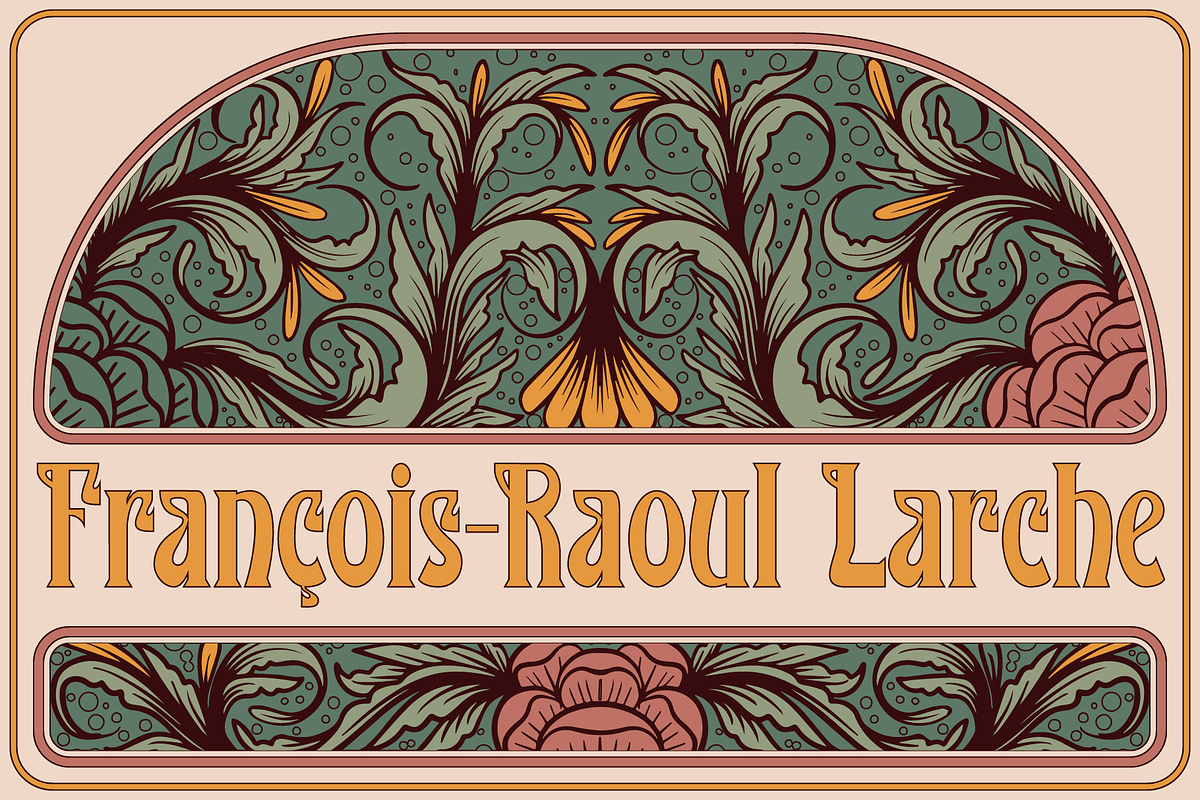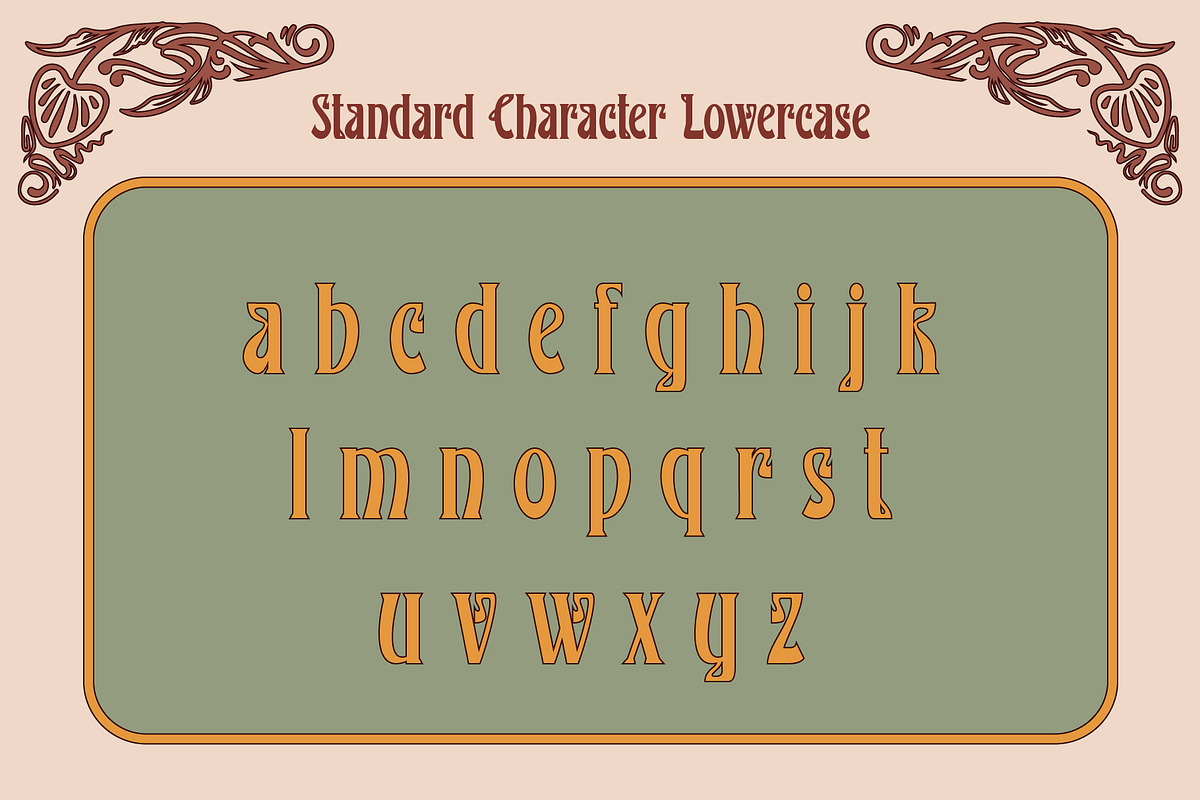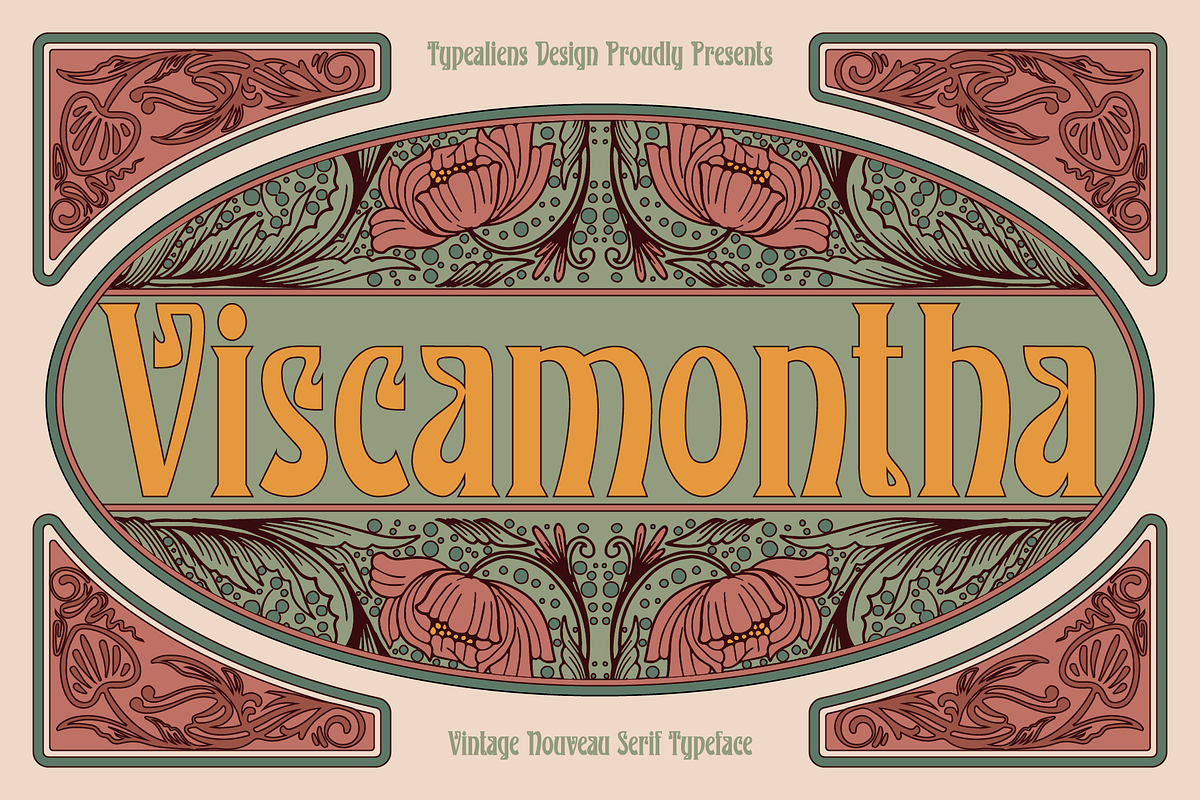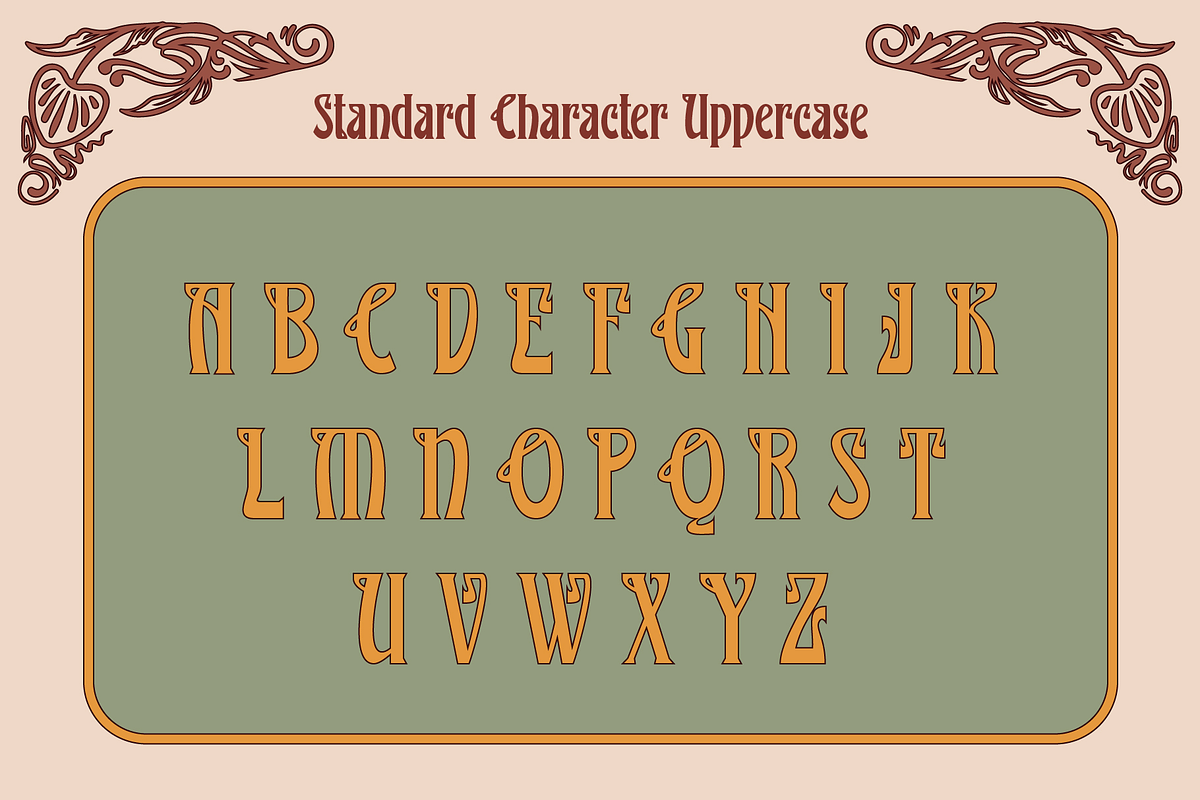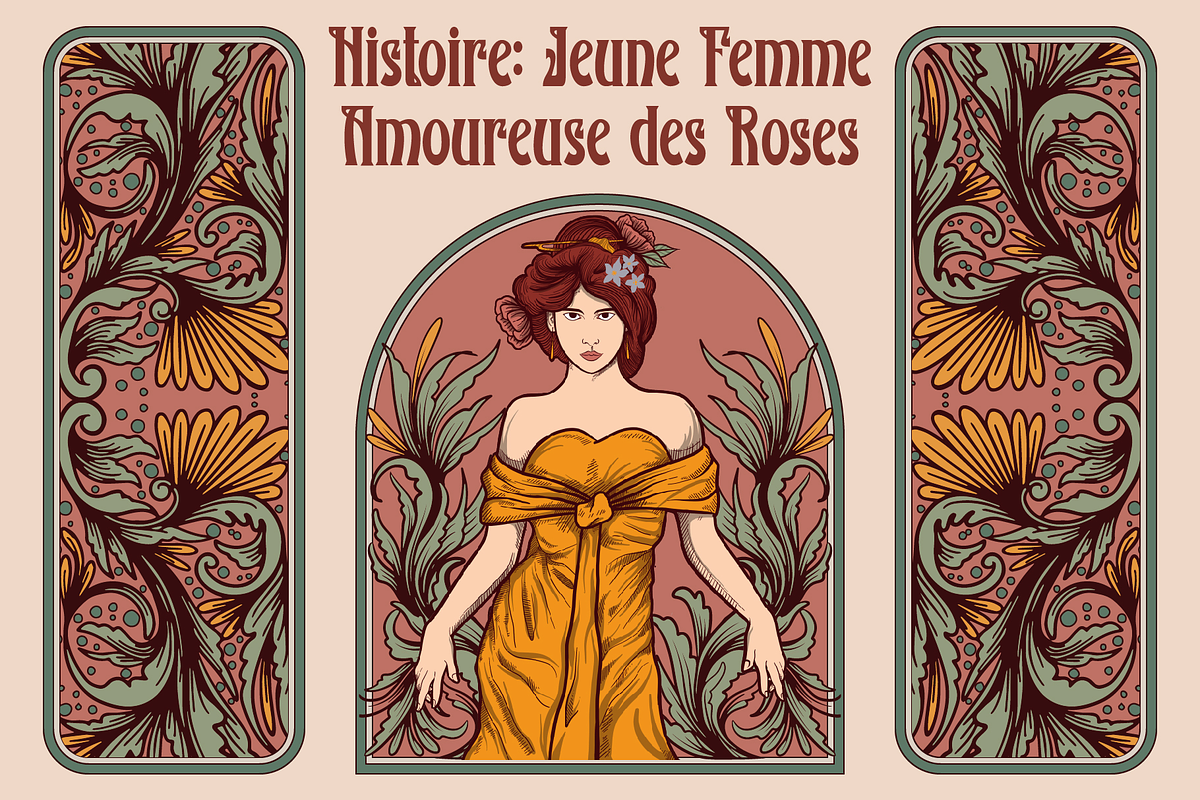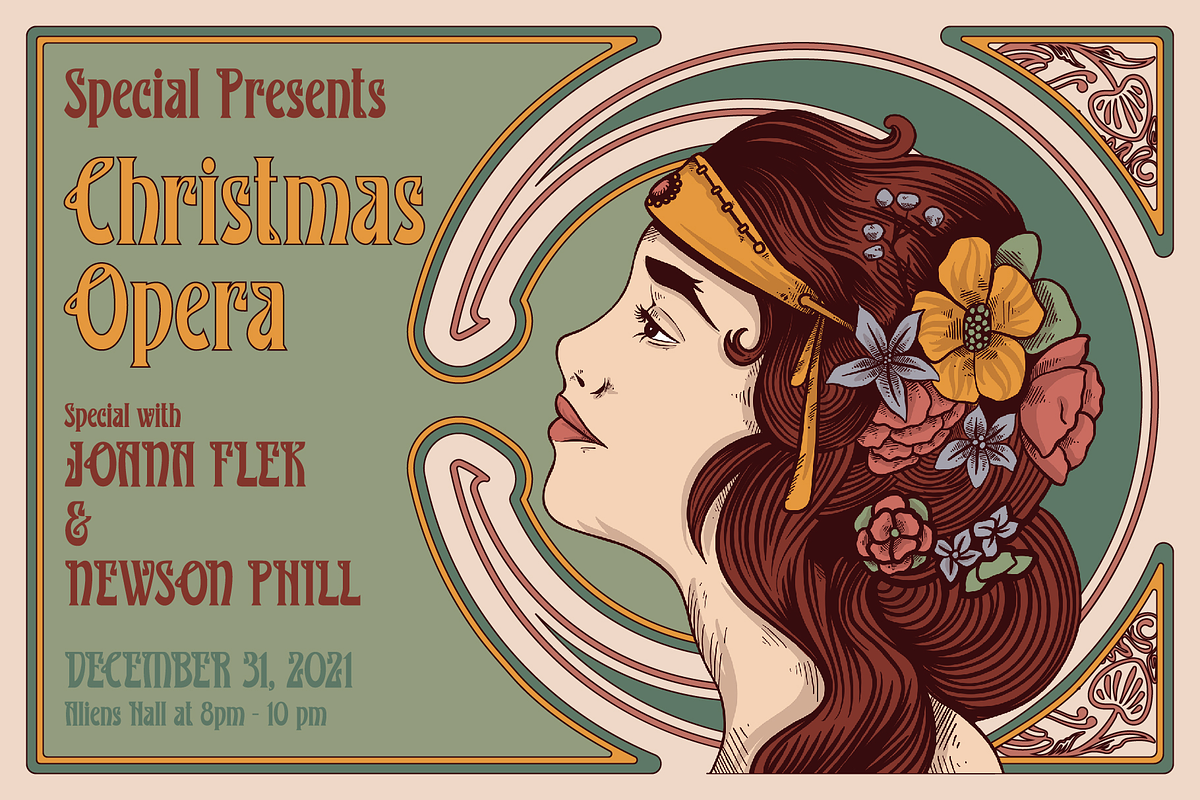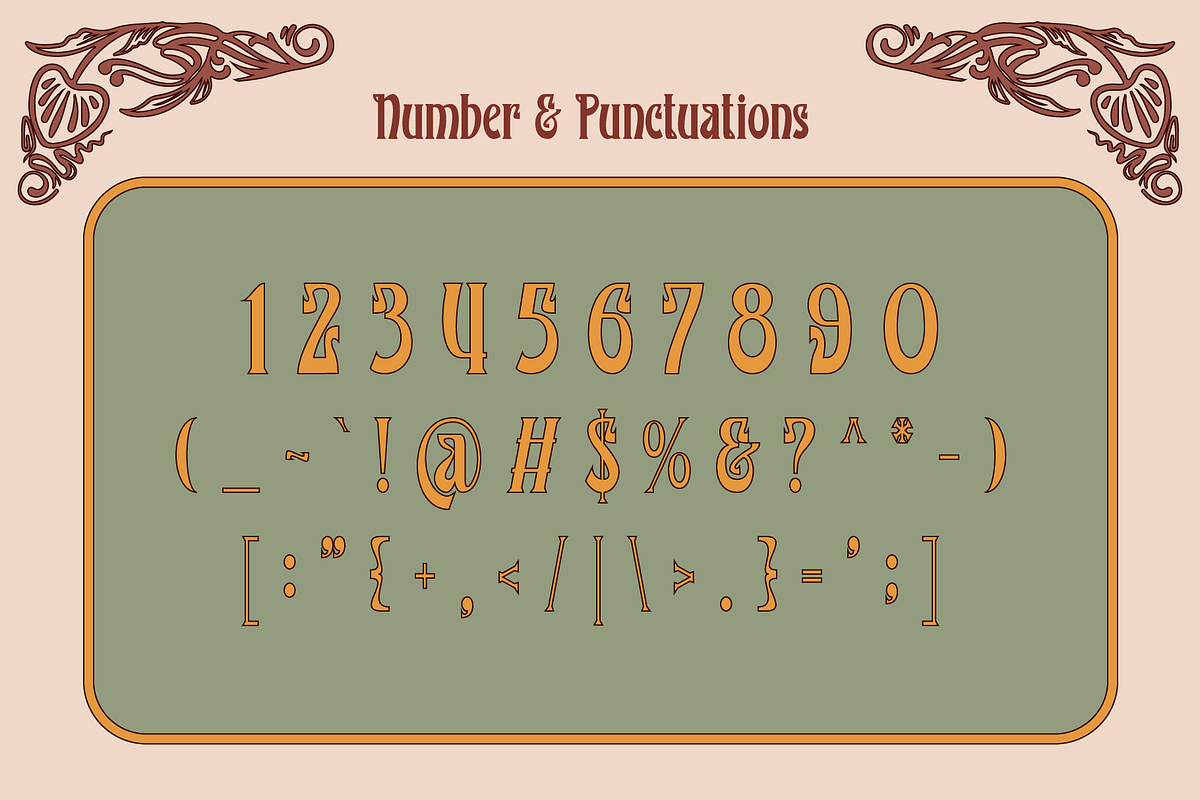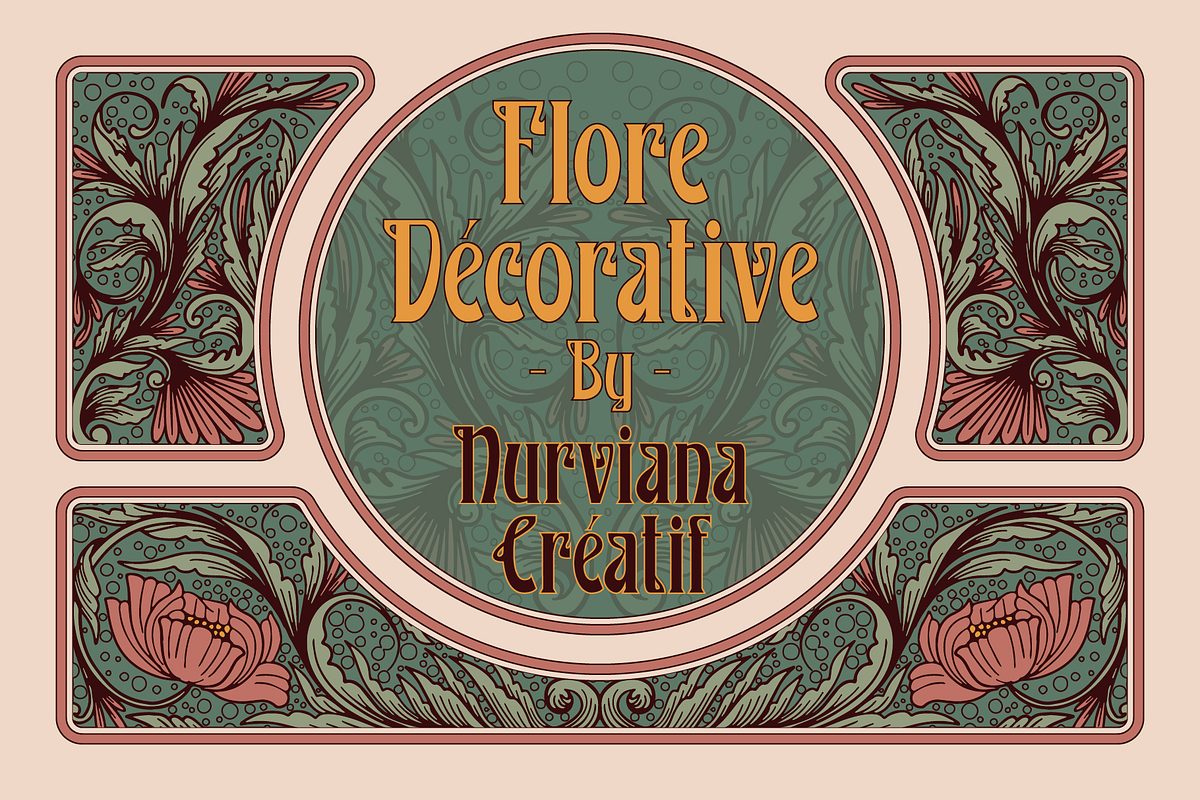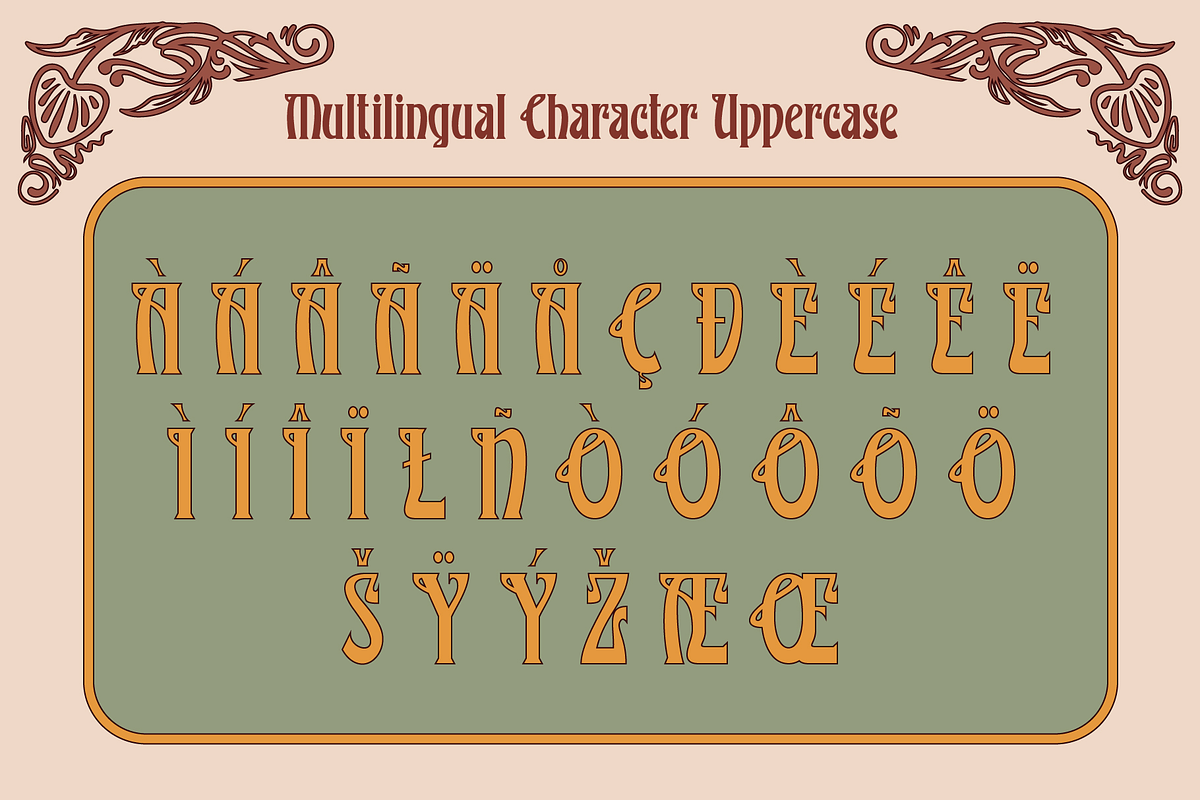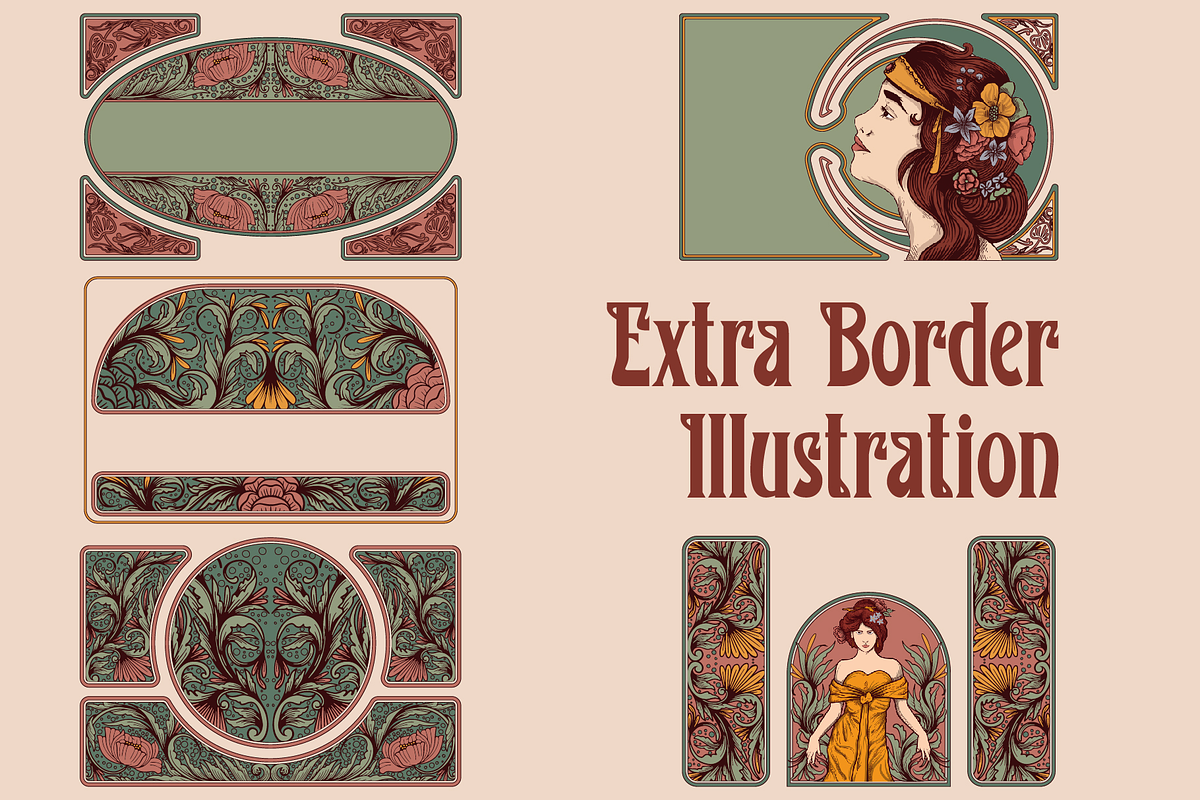
Viscamontha
VISCAMONTHA
Viscamontha is a classic serif font with an art nouveau style, feminine and unique characteristics. It is suitable for women's beauty products or for the title of a fashion show.